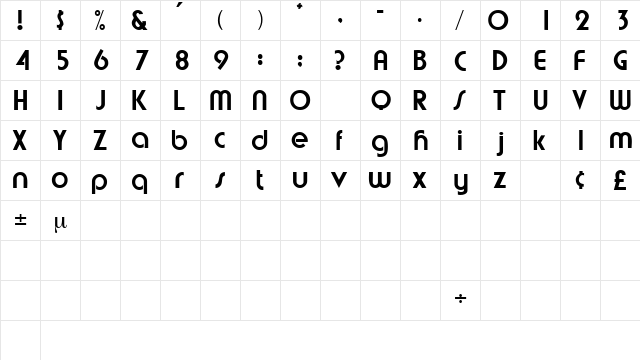
MumboDisplaySSK Regular
Design Context for MumboDisplaySSK Typeface
MumboDisplaySSK brings ornamental detail and strong personality to headlines and identities, where visual impact matters more than quiet functionality.
Font Pairing: Pair with a clean neutral sans-serif for body copy to let MumboDisplaySSK's character lead without overwhelming the composition.
Pro Tip: Treat MumboDisplaySSK as the centrepiece of your typographic hierarchy. One strong heading set in a decorative face can carry an entire layout.